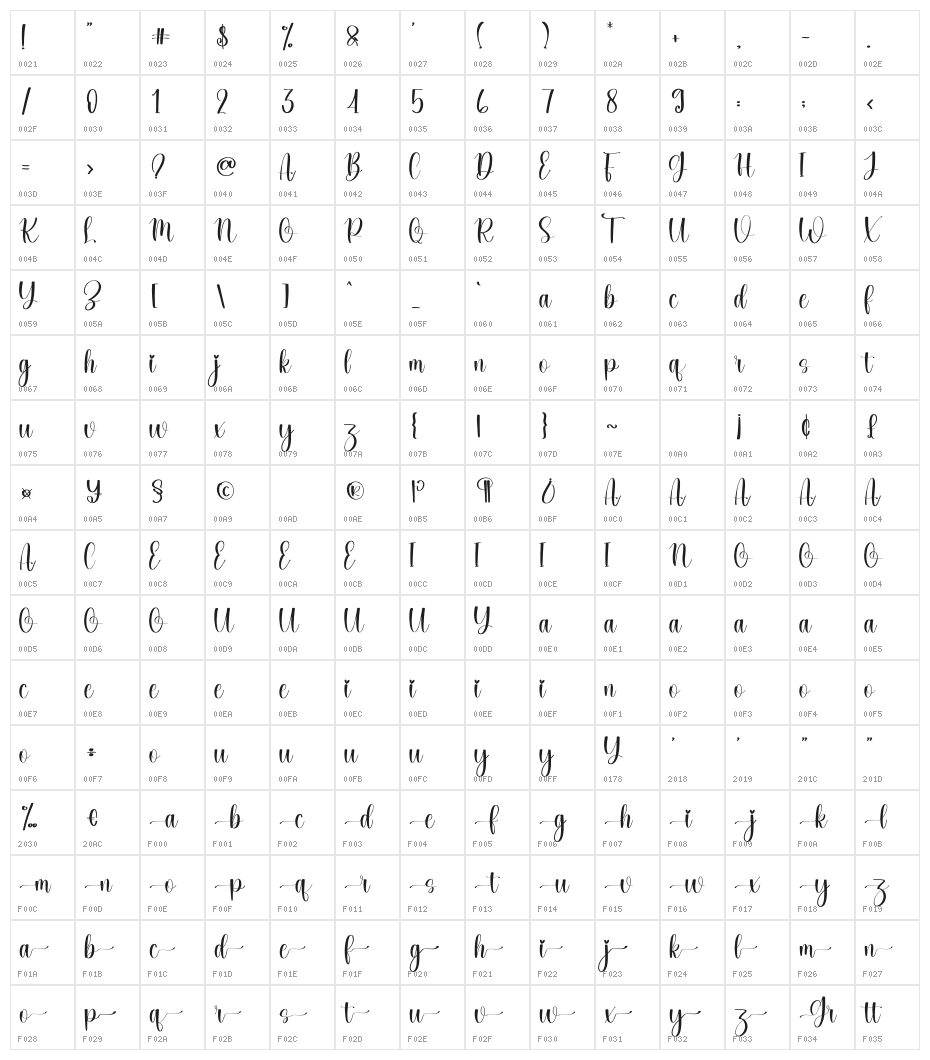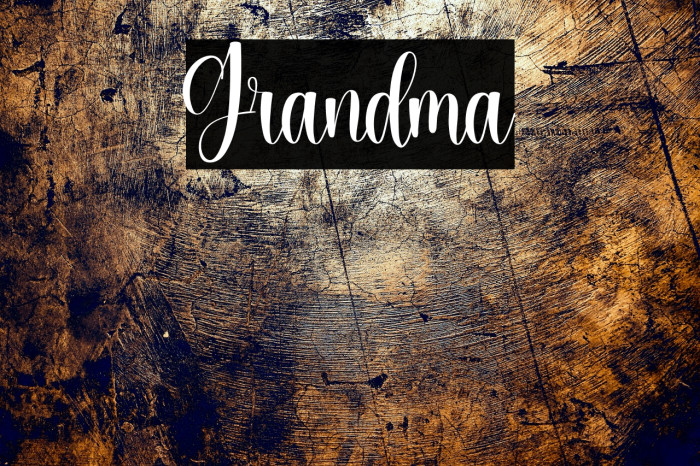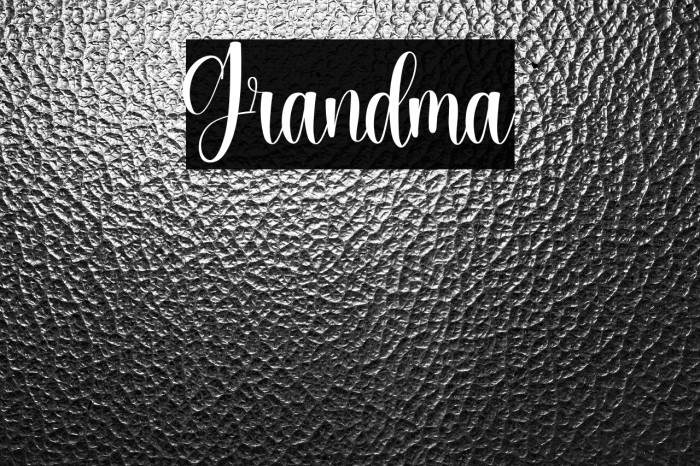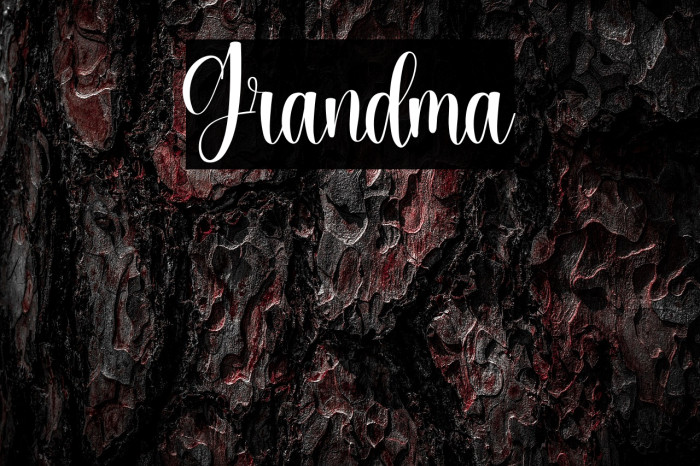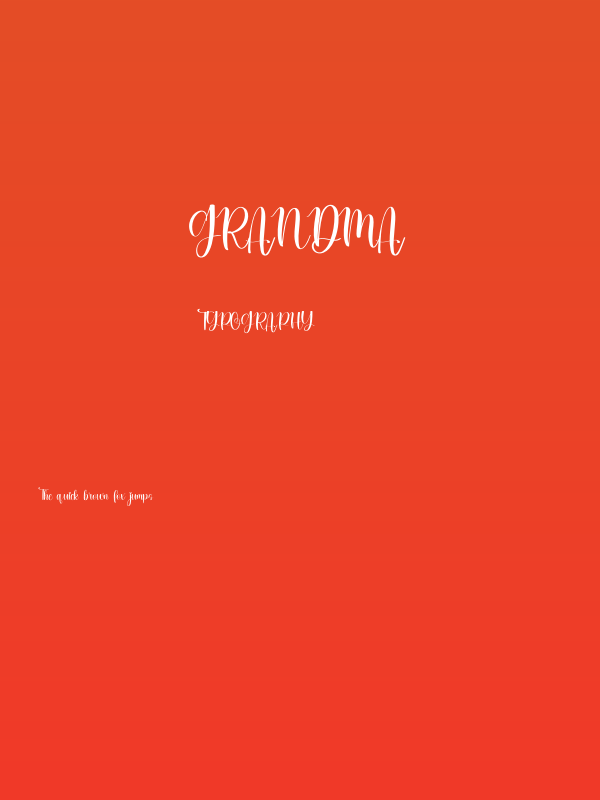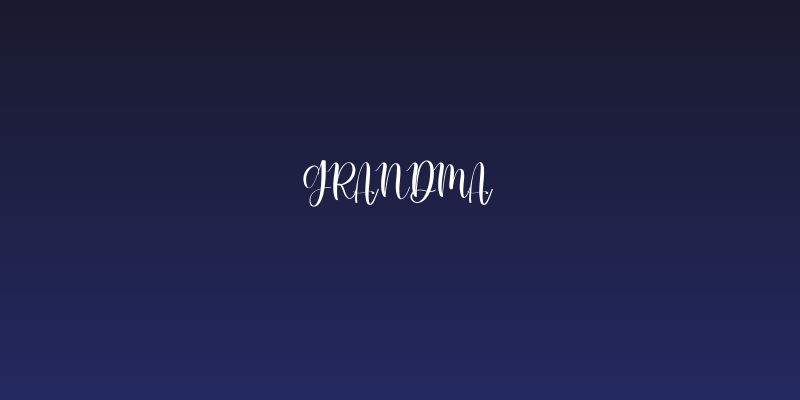
Grandma Font
Grandma Description
This font features an elegant and flowing script style, characterized by its smooth, cursive lines and graceful curves. The uppercase letters are tall and slightly exaggerated, giving them a dramatic flair, while the lowercase letters maintain a consistent flow with subtle variations in stroke width. The numerals are distinct and maintain the same cursive style, ensuring readability. Special characters are creatively integrated, maintaining the overall aesthetic. This font exudes a sense of sophistication and charm, making it suitable for projects that require a personal and artistic touch.
| Proposed Projects | Ideal for wedding invitations, greeting cards, branding, and elegant packaging designs. |